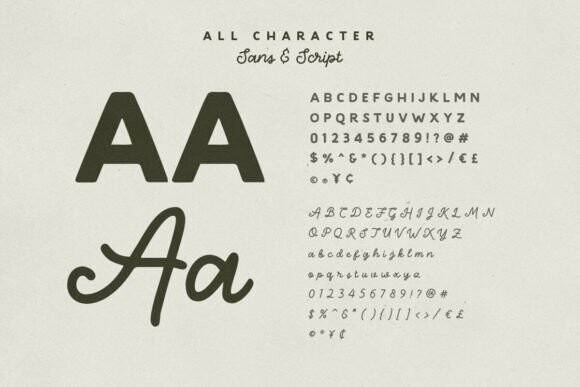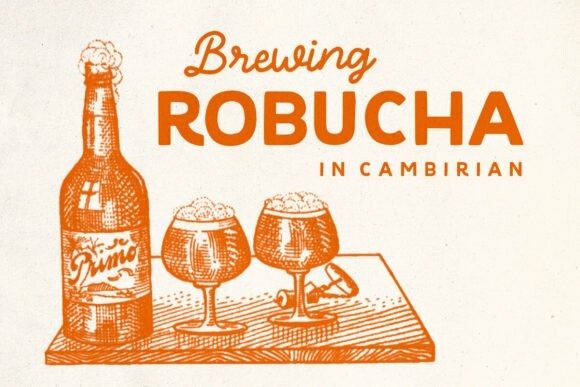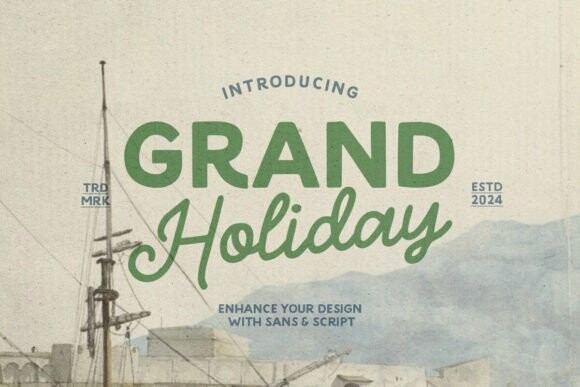
Grand Holiday Font
Designer: baletype
Grand Holiday Font is a travel font duo that contains minimalist sans and monoline script that is made by hand lettering style. You can use this font for any purpose such as posters, book covers, logos, branding, and quotes as well. This font is suitable for projects that have outdoor or adventure themes.